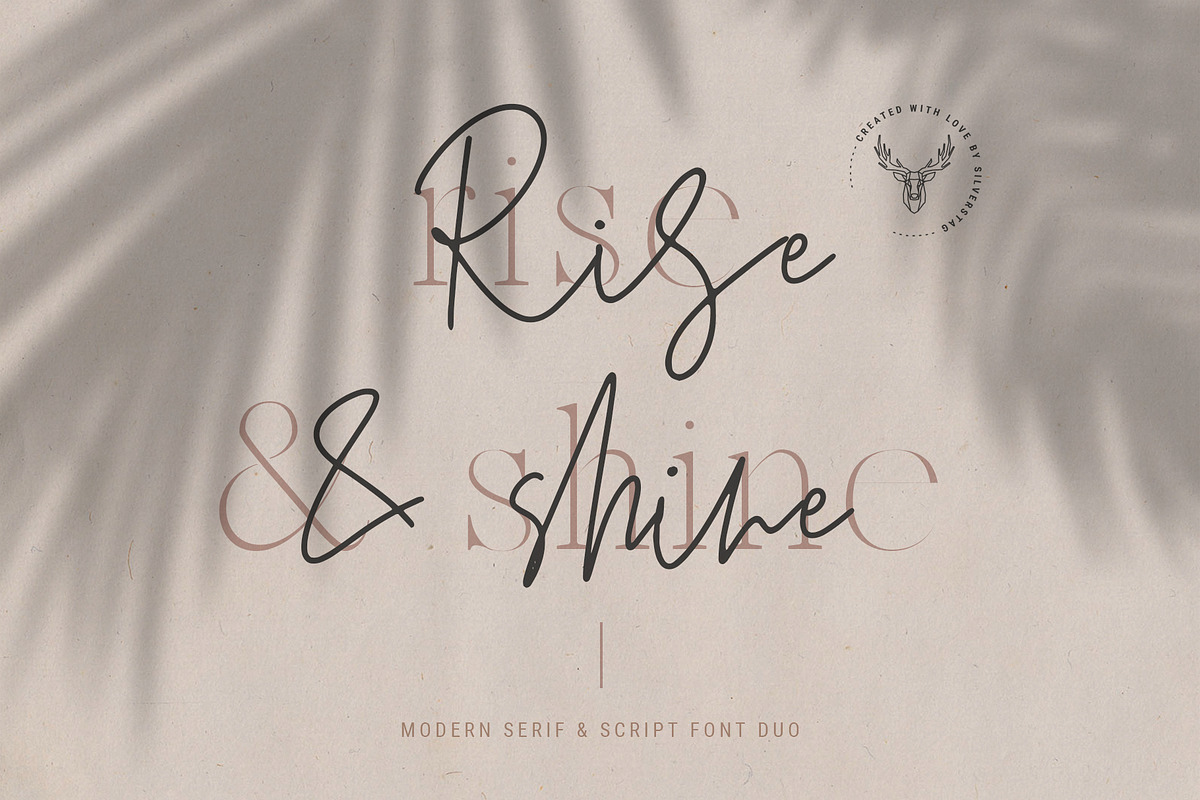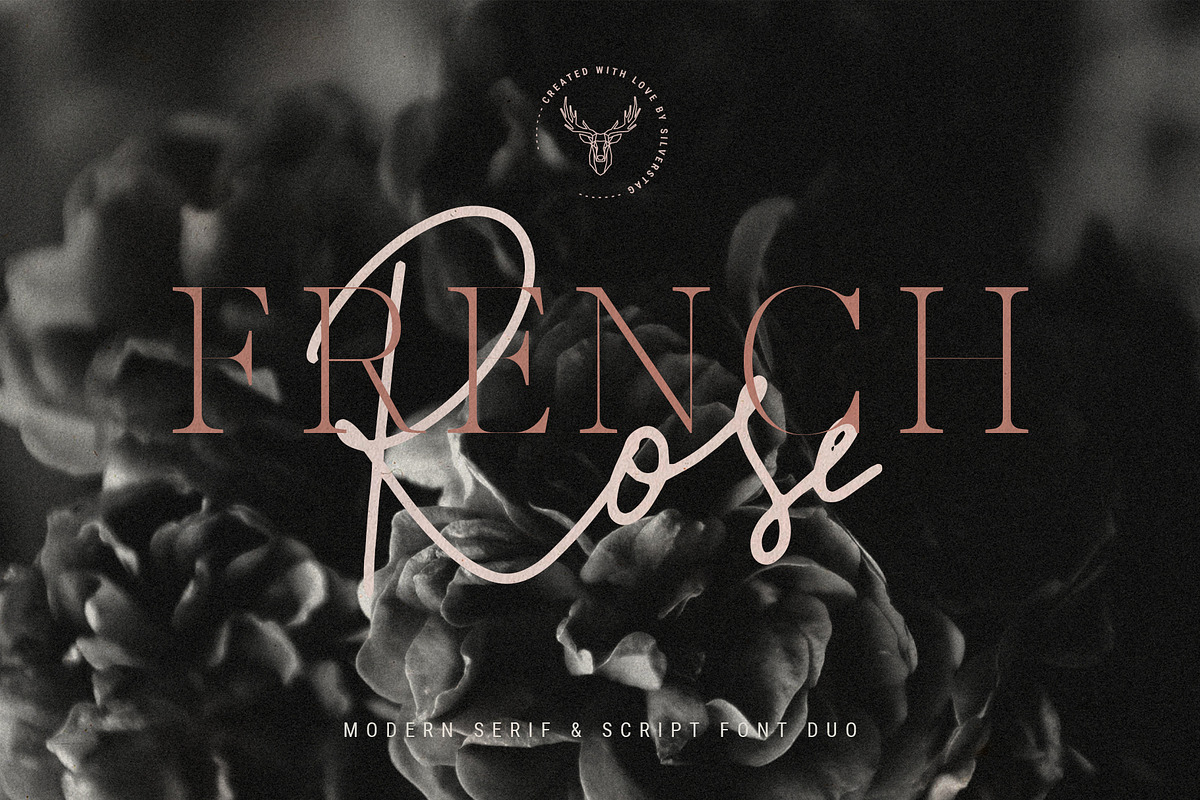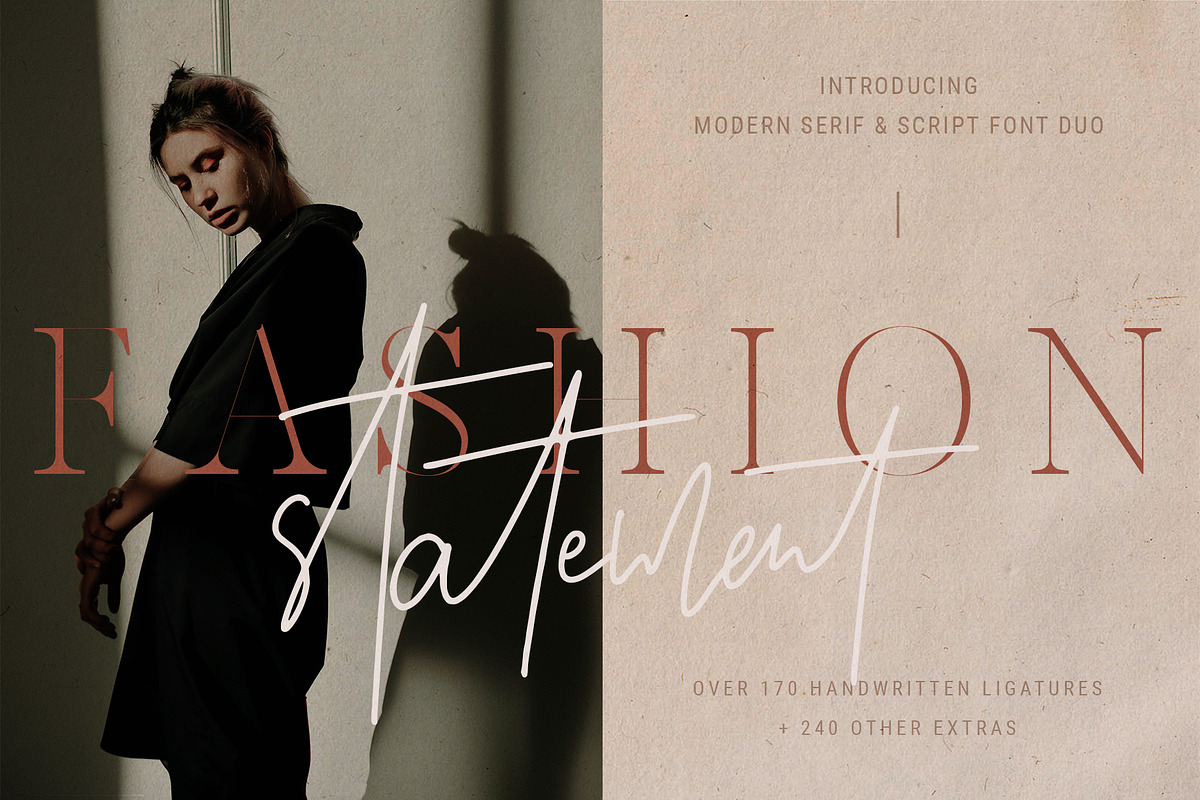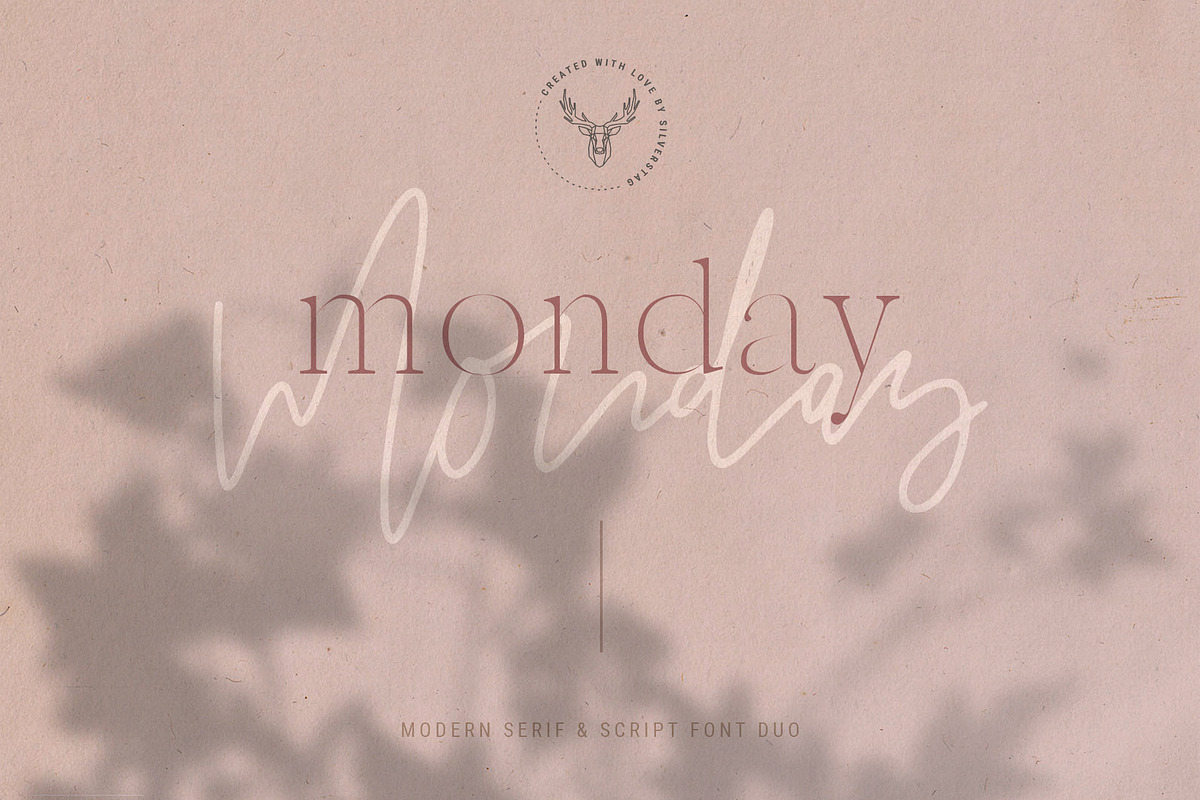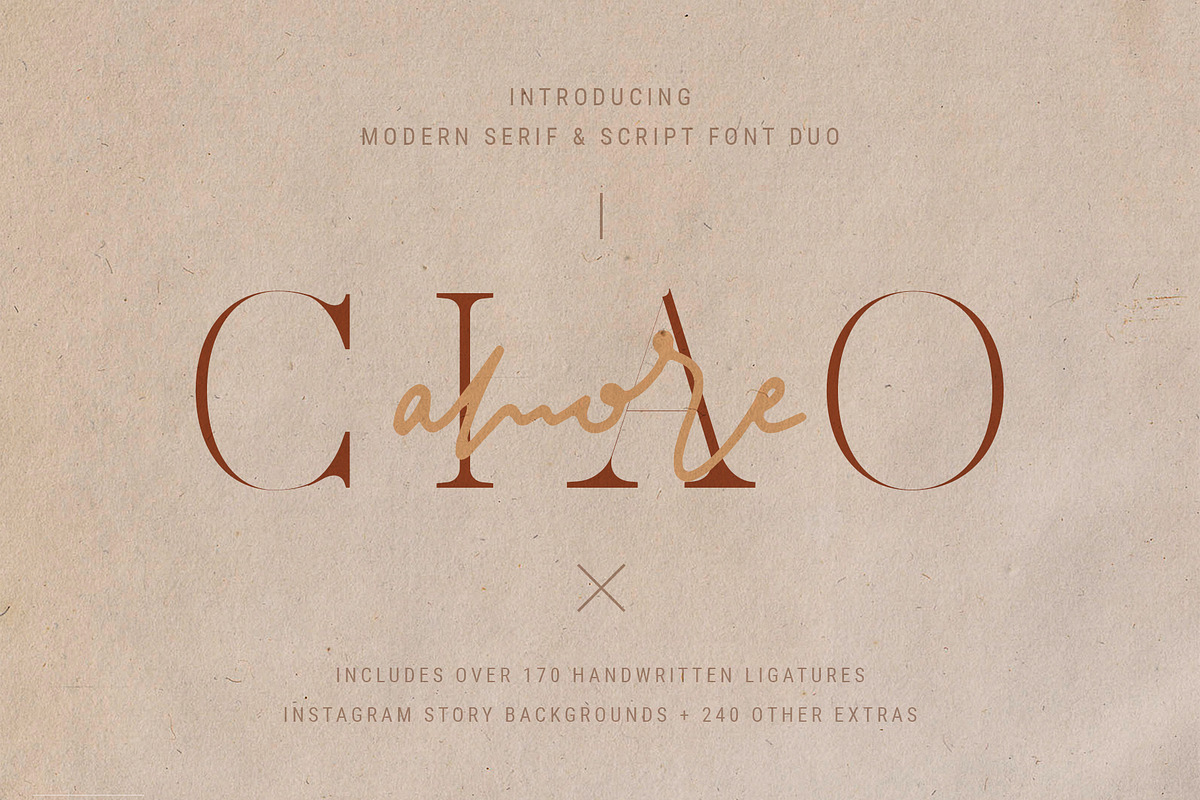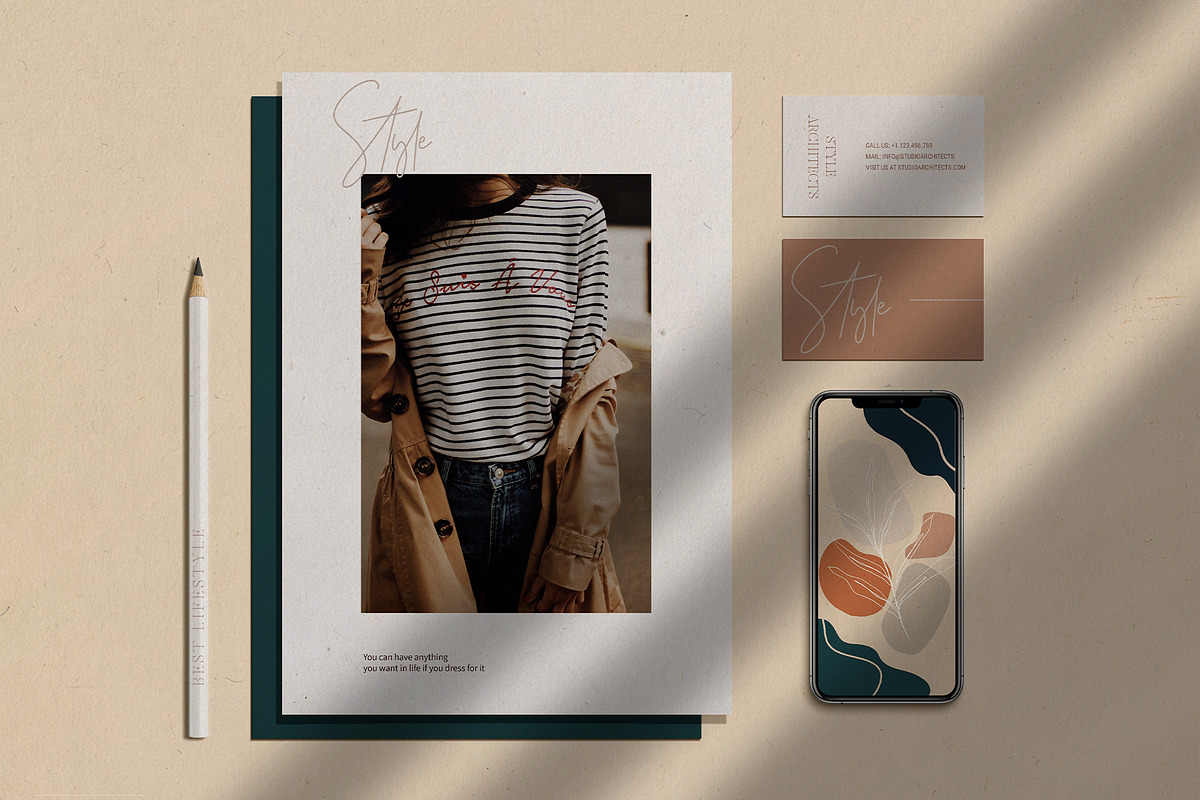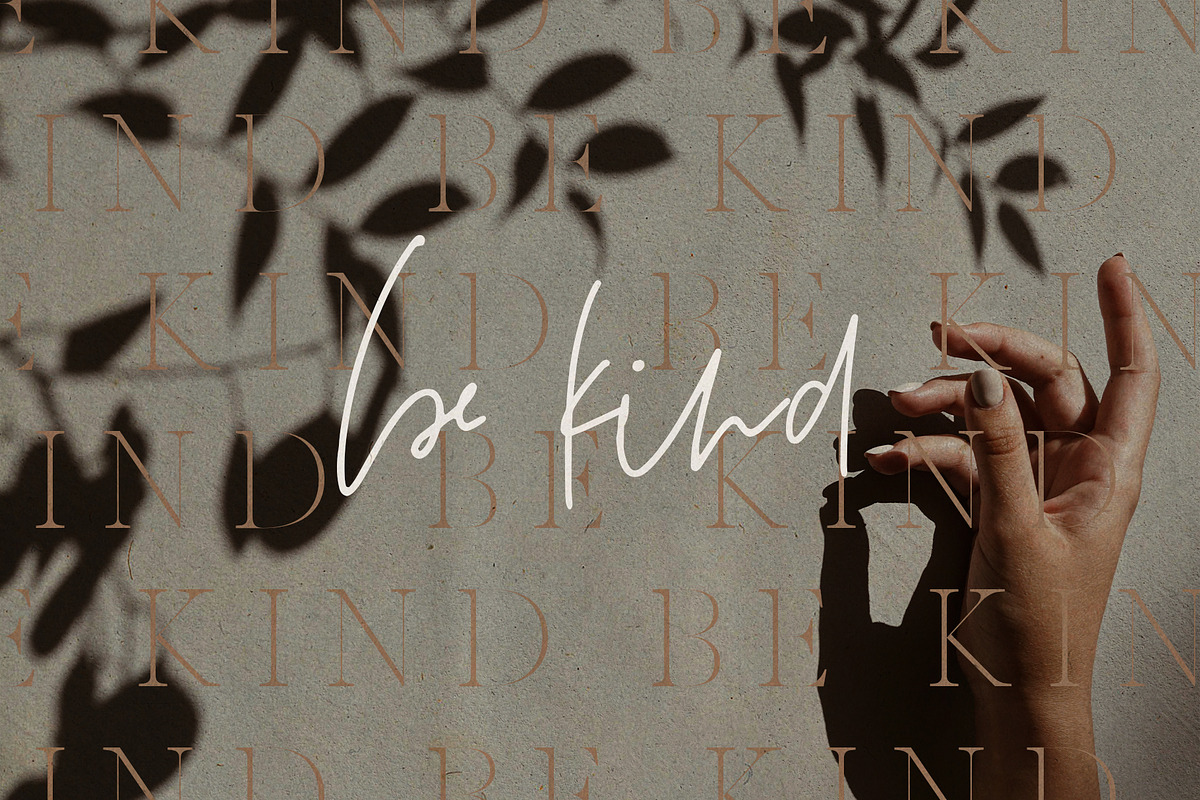
Marseille & Amsterdam Font Duo
I am so happy to introduce my first font duo - Marseille & Amsterdam. Marseille is a creative & modern serif font inspired with French art and it's perfect addition to your font collection. Amsterdam is on the other side a playful and dynamic script signature font that has over 170 ligatures. It's perfect for all kinds of branding projects, especially if you need to create a signature logo for your clients.
Marseille Regular - marseille-regular.otf - Creative new Serif font with high contrast between thin and thick lines that will be useful for all your projects!
Amsterdam Script - AmsterdamScript.otf - Fully handwritten signature font that is perfect for your graphic design projects!
Over 170 Ligatures in Amsterdam Script Font
Modern & Creative Design
Both fonts include the following letters: A À Á Â Ã Ä Å C Ç D Ð E È É Ê Ë I Ì Í Î Ï N Ñ O Ø Ò Ó Ô Õ Ö U Ù Ü Ú Û W Ẃ Ŵ ẄẀ Y Ý Ÿ Ỳ Ÿ Æ Œ ß Þ þ in uppercase and lowercase and they both support Danish, English, French, German, Norwegian Bokmål, Portuguese, Spanish, Swedish.